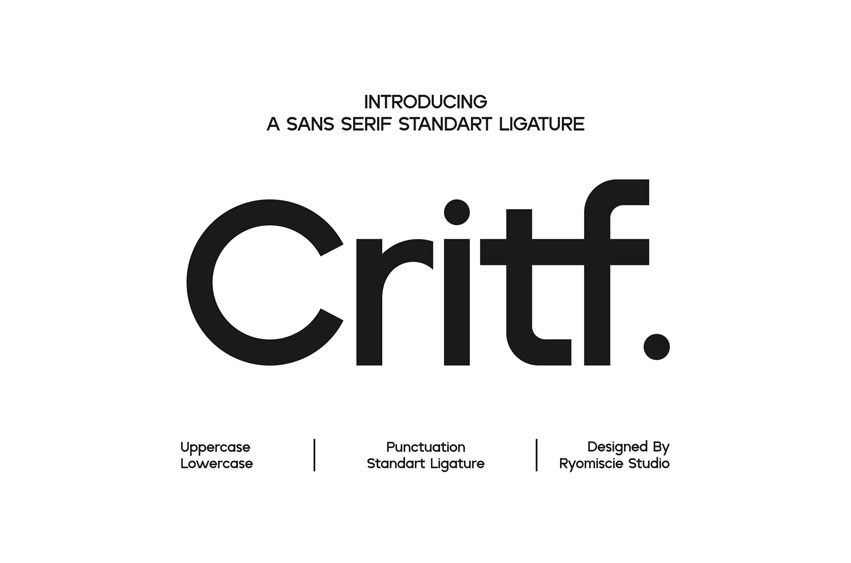
Critf Font
Critf Font Sans Serif Standart Ligature is a bold and authentic display font.
The font is suitable for any branding project like logo, esport, and many more. outstanding in a wide range of contexts.
• Standart Ligature